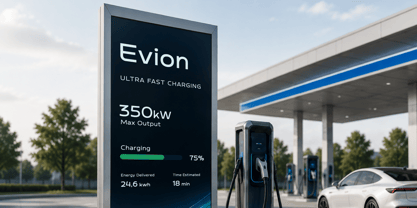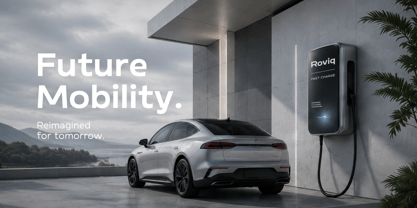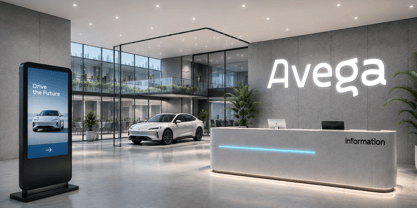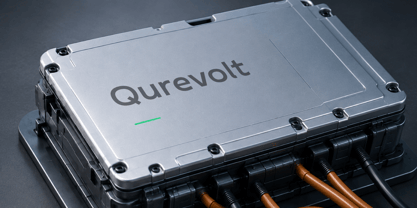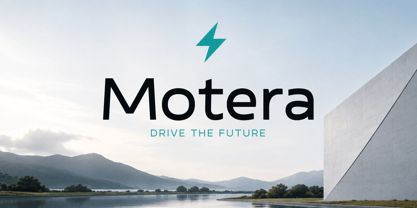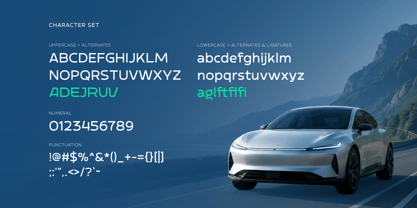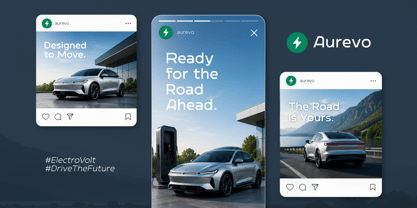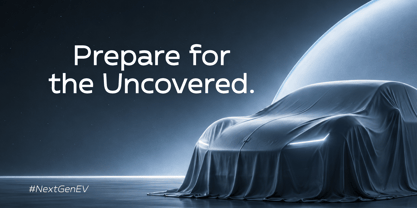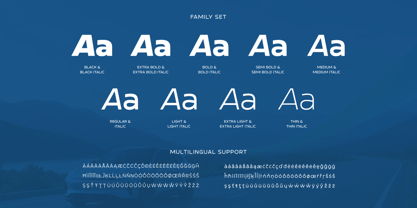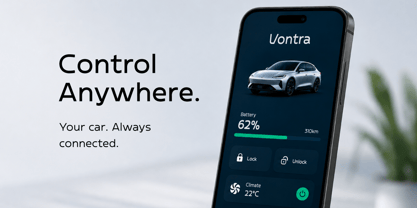
Elegtro Volt
The Elegtro Volt Font Family was designed by Rozikan and published by Twinletter. Elegtro Volt contains 18 styles and family package options. More about this family
Elegtro Volt – Modern Sans for EV is a modern sans serif font designed to bring a futuristic, clean, technological, and premium feel to electric vehicle branding and automotive technology projects. Its geometric character and contemporary letterforms make it ideal for headlines, logos, campaigns, advertising, and visual communication that requires a strong technology-driven identity.
This font is perfect for EV manufacturers, battery technology startups, autonomous driving software, charging infrastructure, electric mobility, automotive technology, and renewable energy brands. Elegtro Volt works beautifully for vehicle branding, EV product launches, charging station campaigns, automotive websites, mobile apps, social media content, packaging, presentations, and digital advertising.
With its versatile and modern character, Elegtro Volt creates a visual identity that feels innovative, efficient, sustainable, and future-ready. It is a strong choice for automotive designers, branding agencies, technology startups, and creative teams looking for a modern sans serif display font for next-generation EV brands.
- Multilingual Support: Fully supports 85+ languages, including:
Afrikaans, Albanian, Asu, Basque, Bemba, Bena, Breton, Catalan, Chiga, Cornish, Croatian, Czech, Danish, Dutch, Embu, English, Esperanto, Estonian, Filipino, Finnish, French, Friulian, Galician, Gusii, Hungarian, Indonesian, Irish, Italian, Kabuverdianu, Kalenjin, Kamba, Kikuyu, Kinyarwanda, Latvian, Lithuanian, Lower Sorbian, Luo, Luxembourgish, Luyia, Machame, Makhuwa-Meetto, Makonde, Malagasy, Maltese, Manx, Meru, Morisyen, North Ndebele, Norwegian Bokmål, Norwegian Nynorsk, Nyankole, Oromo, Polish, Portuguese, Quechua, Romanian, Romansh, Rombo, Rundi, Rwa, Samburu, Sango, Sangu, Scottish Gaelic, Sena, Serbian, Shambala, Shona, Slovak, Slovenian, Soga, Somali, Spanish, Swahili, Swedish, Swiss German, Taita, Teso, Turkish, Upper Sorbian, Uzbek (Latin), Volapük, Vunjo, Walser, Zulu.